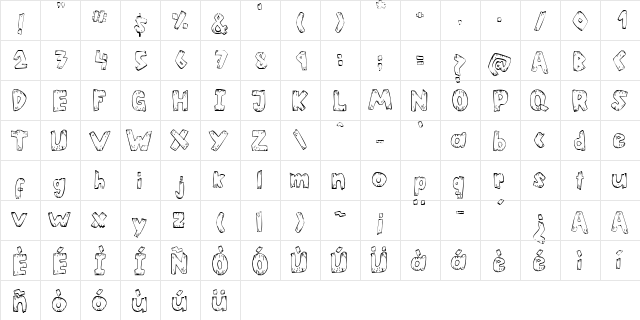
Helter Skater Normal
Design Context for Helter Skater Typeface
Helter Skater is a composed and adaptable typeface that performs quietly and consistently across a wide range of design contexts.